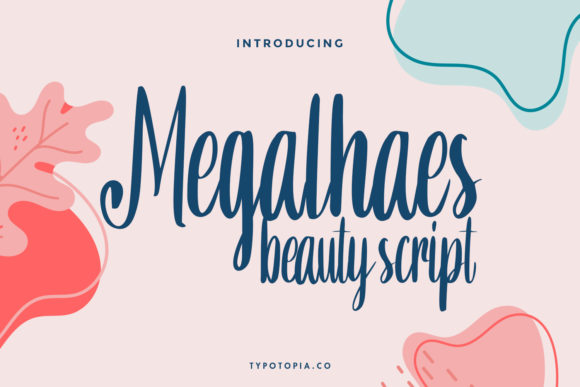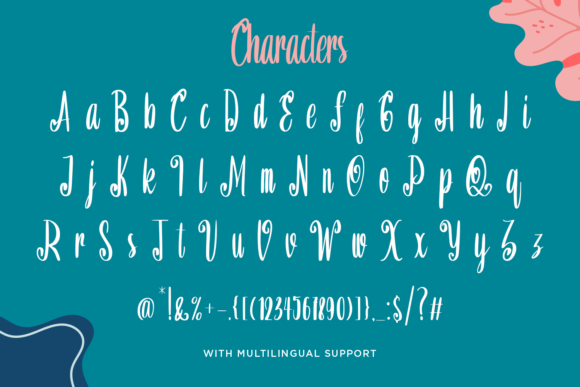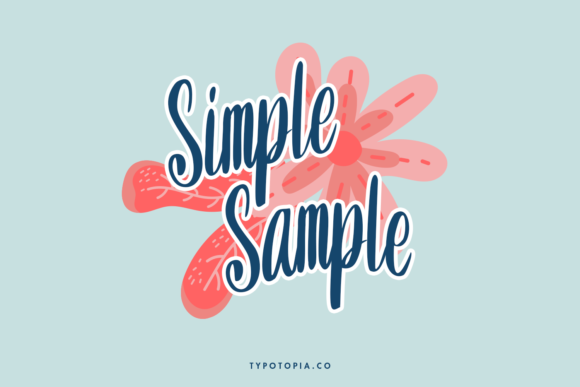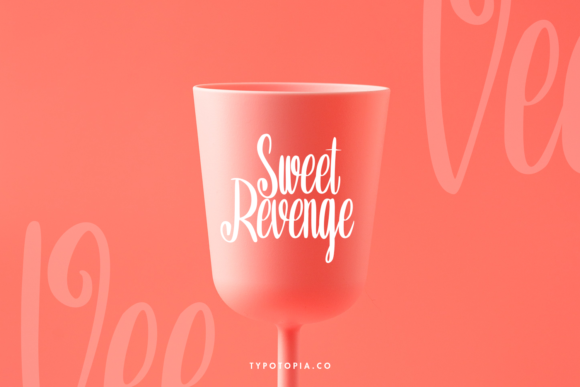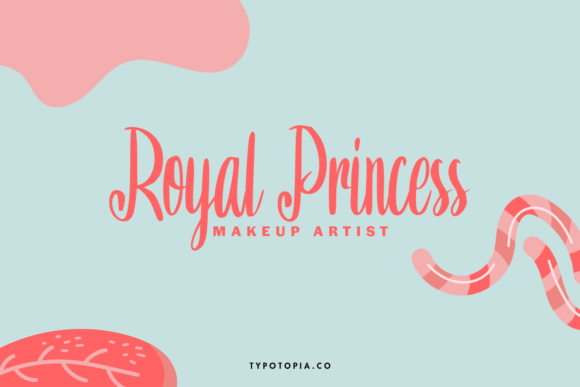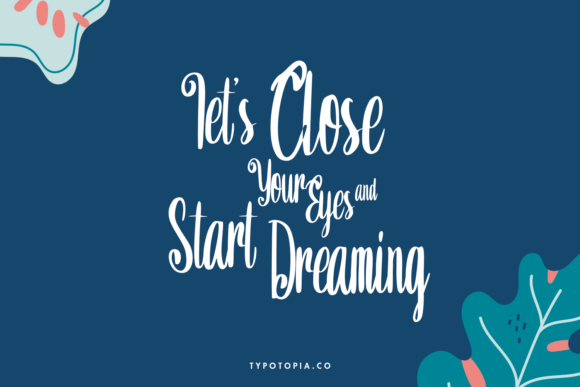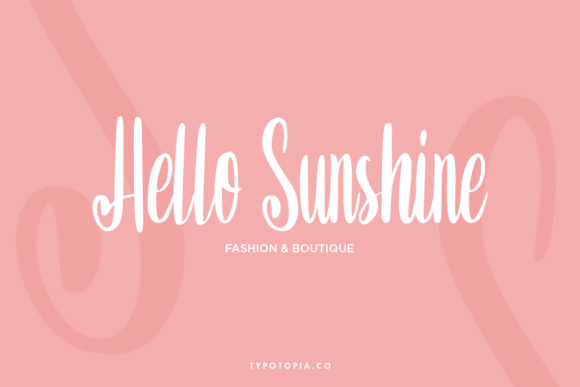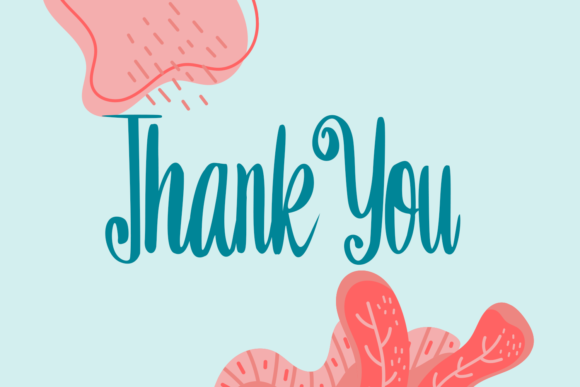
Megalhaes Font
About Megalhaes Font
Megalhaes is a stylish and incredibly elegant script font. It looks stunning on wedding invitations, thank you cards, quotes, greeting cards, logos, business cards and every other design which needs a handwritten touch.